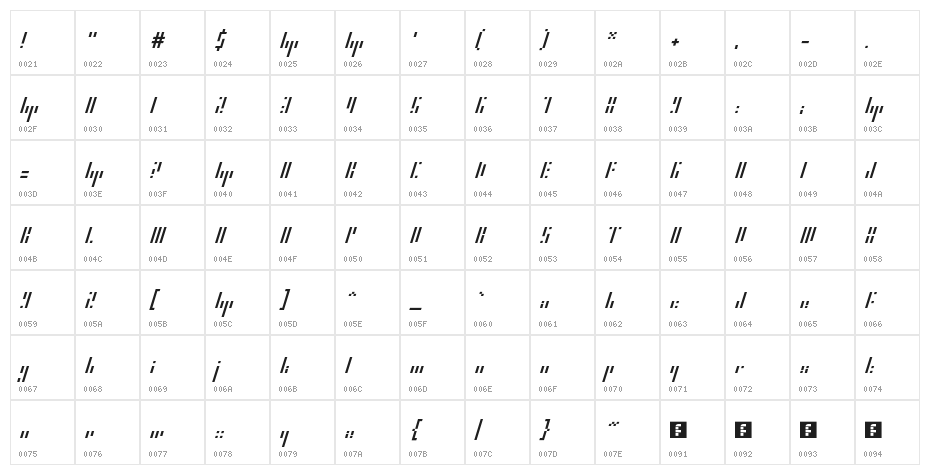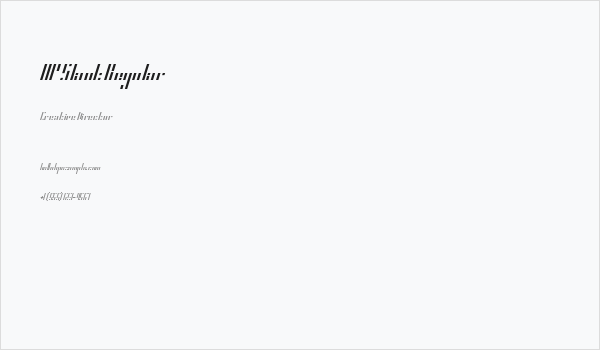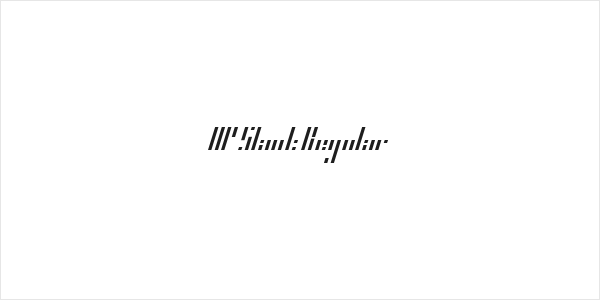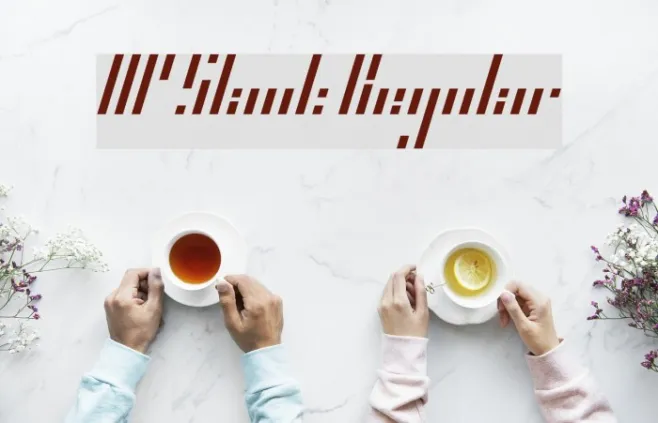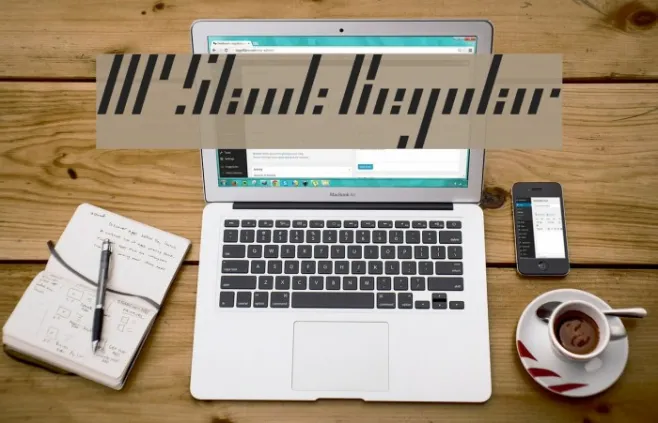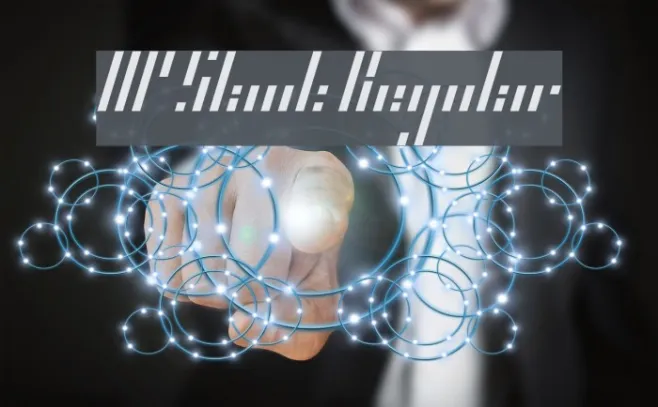
HP Slant Regular Font
HP Slant Regular Description
This font features a distinct slanted, italicized style with a modern, digital aesthetic. The characters are composed of bold, angular lines that create a sense of movement and speed. The uppercase and lowercase letters maintain a consistent slant, enhancing the dynamic appearance. Numbers and special characters follow the same design principles, ensuring uniformity across all glyphs. The font's geometric structure gives it a futuristic feel, suitable for tech-related projects or modern branding.